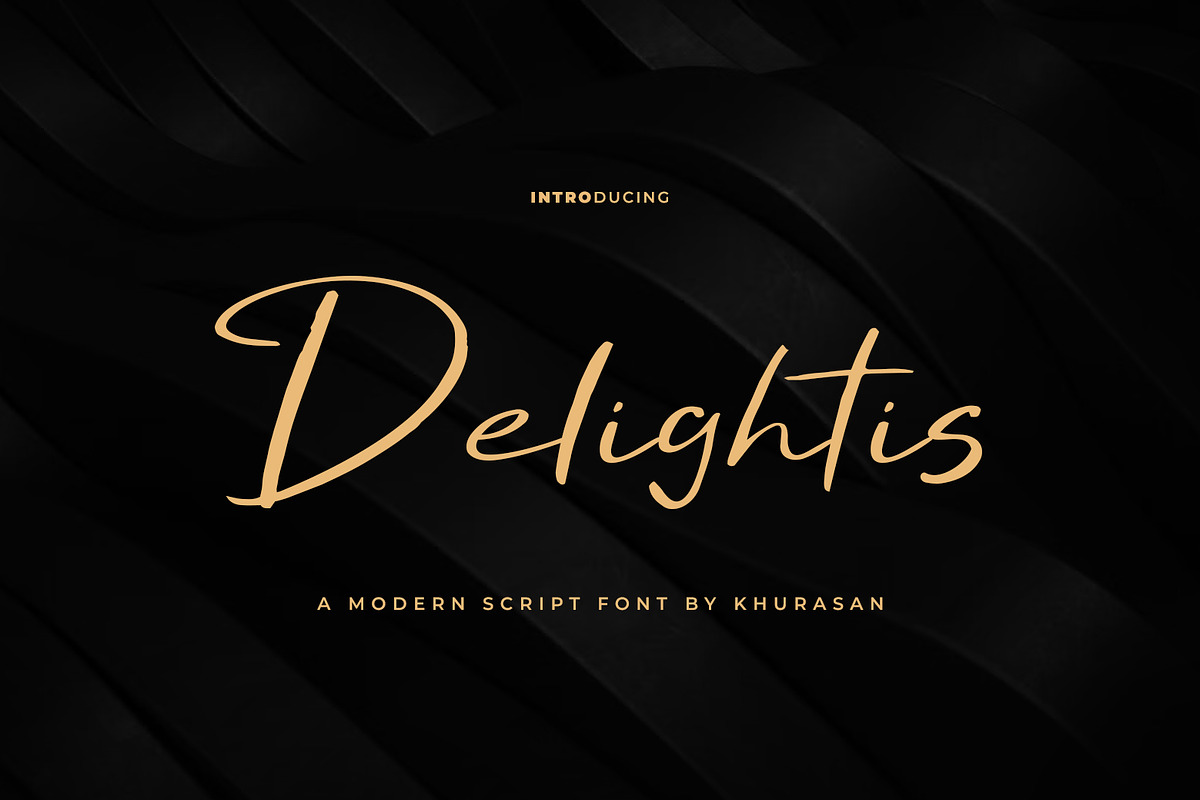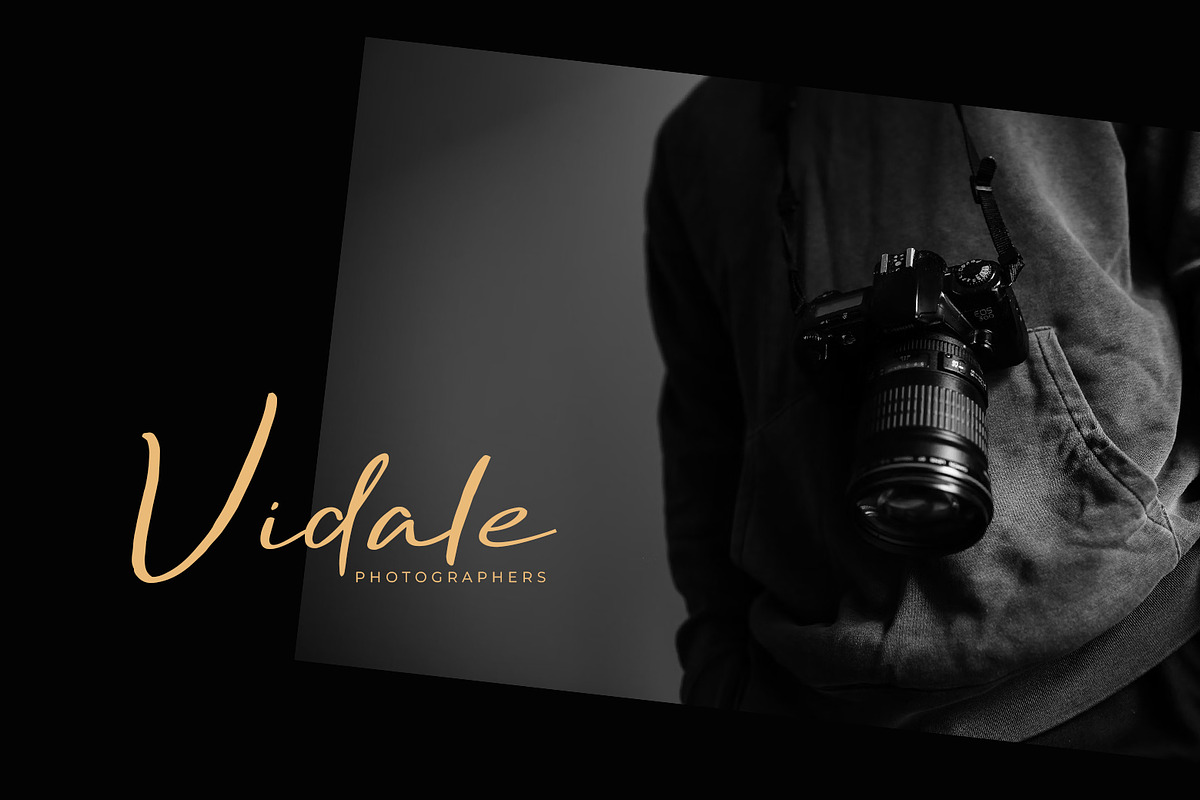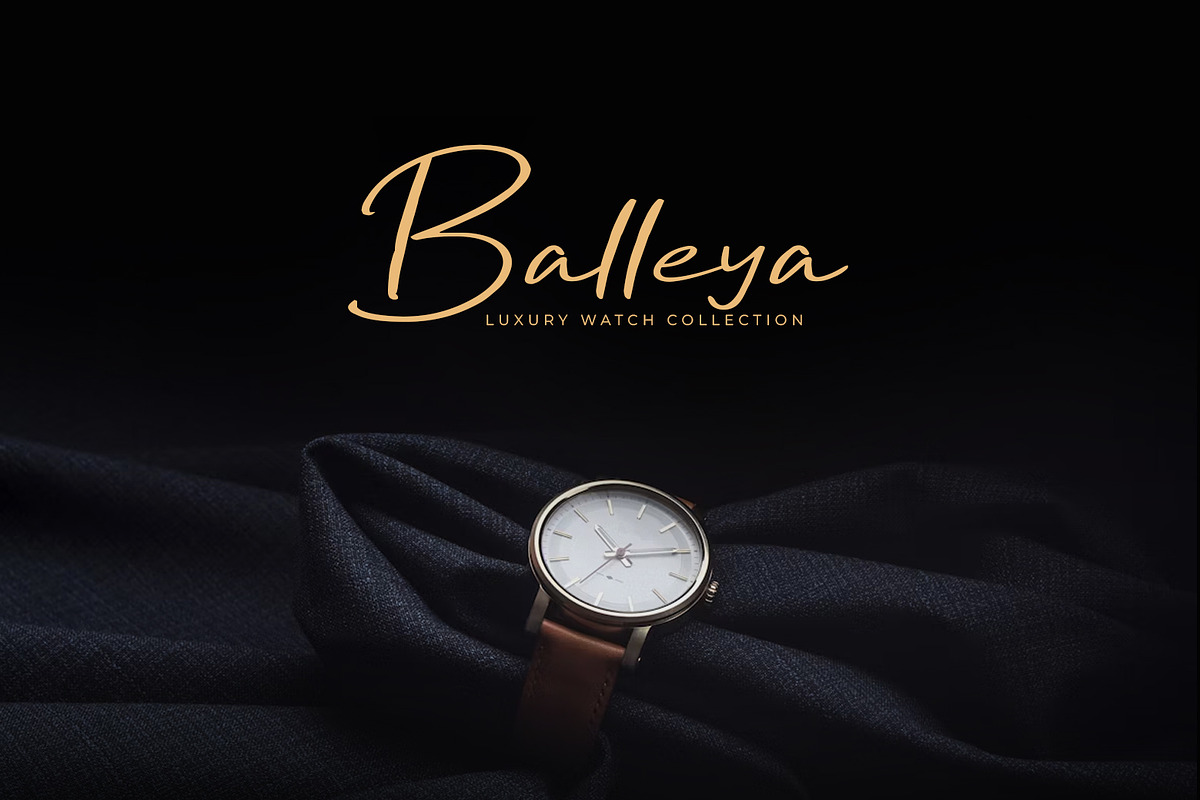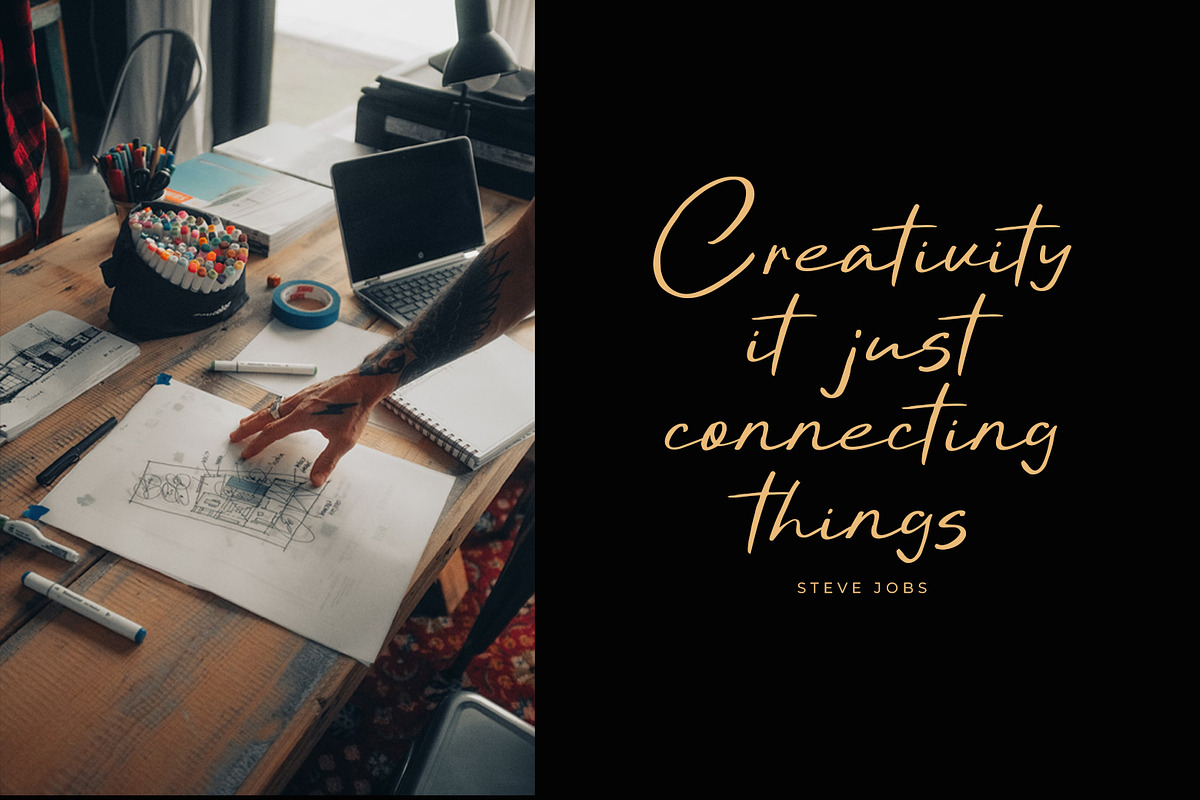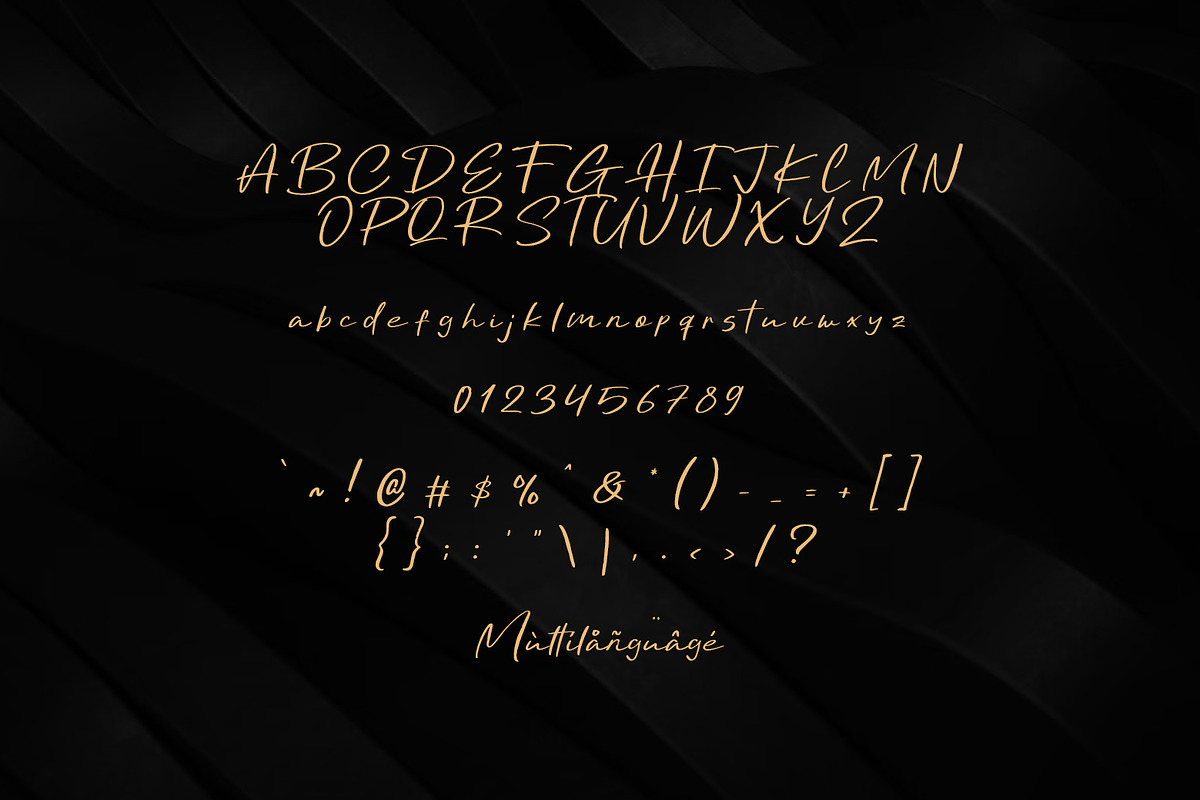
Delightis Script
Delightis is a modern script font. Delightis font suitable for logo, branding, greeting card, poster and any design that you create…!
Khurasan